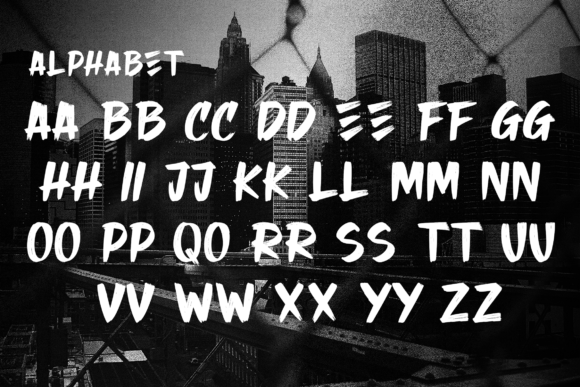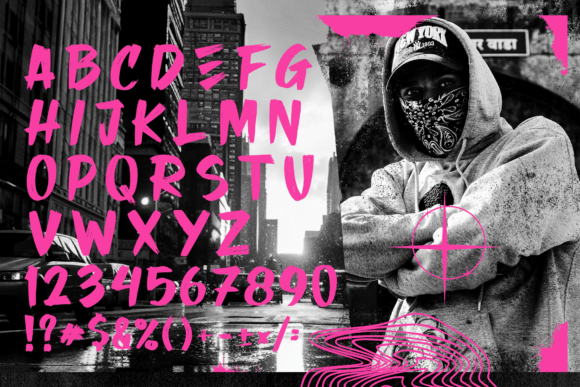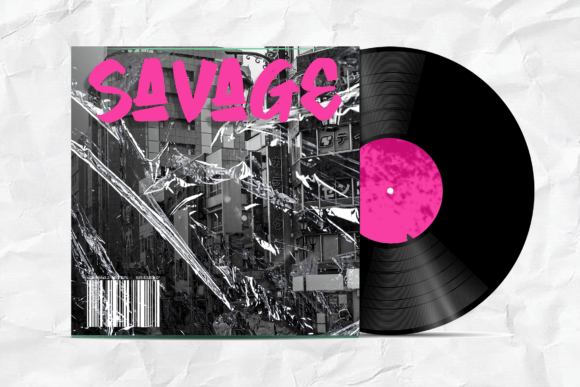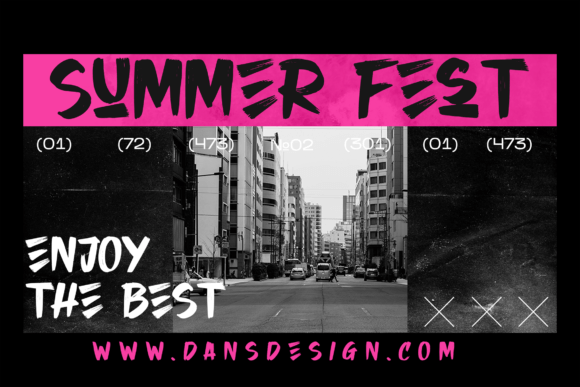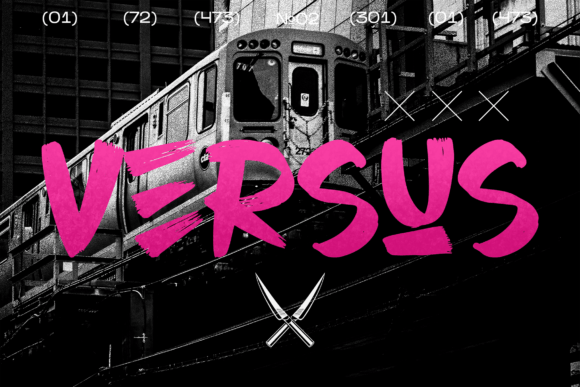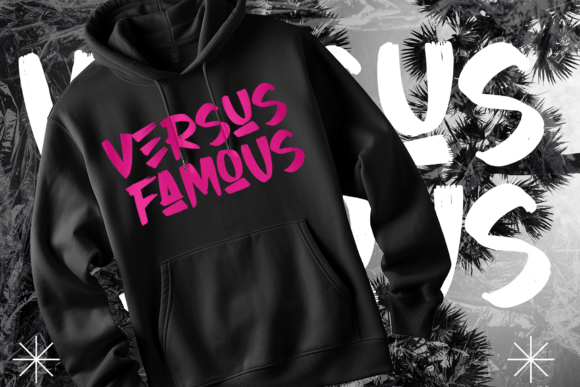
Introduction to Severa Font Font
Fonts play a crucial role in design, and the Severa Font font is a typeface that brings both character and versatility to any project. Whether you’re working on a branding project, a website, or a print design, the Severa Font font offers a unique style that can elevate your work.
SEVERA is a bold Marker Brush Display font that adds a vibrant touch to your designs.
With its bold strokes and energetic style, SEVERA stands out, making your text pop with personality Perfect for posters, headlines, and branding projects, this font adds a dynamic flair to any design.
Key Features of Severa Font Font
Why Choose Severa Font Font?
The Severa Font font is more than just a typeface – it’s a design tool that helps you communicate your message with style and clarity. Its unique character set and versatile design make it suitable for a wide range of applications, from elegant invitations to bold headlines.
With its carefully crafted letterforms and balanced proportions, the Severa Font font ensures readability and visual appeal across all mediums.
What makes Severa Font font special?
The Severa Font font stands out with its unique design, exceptional readability, and versatility across various design applications.